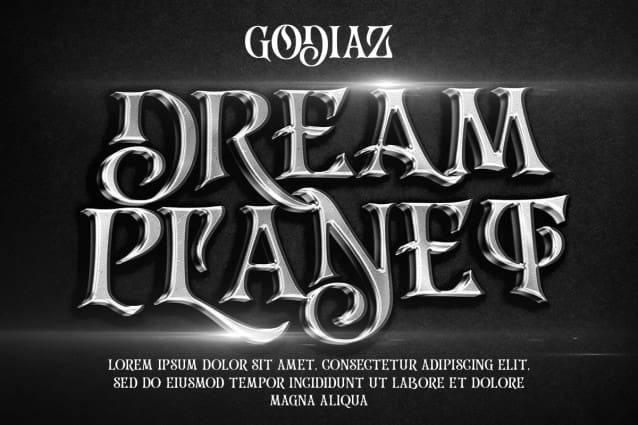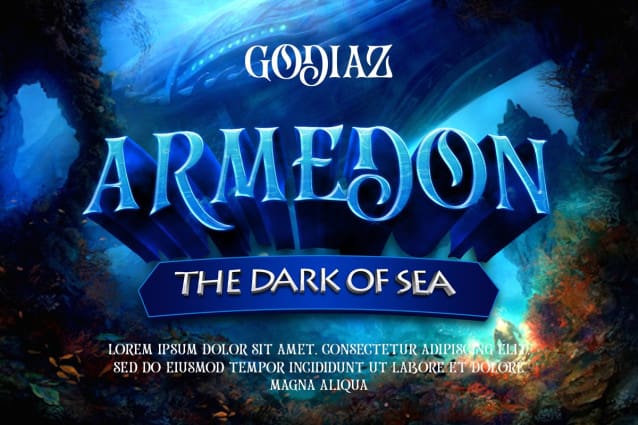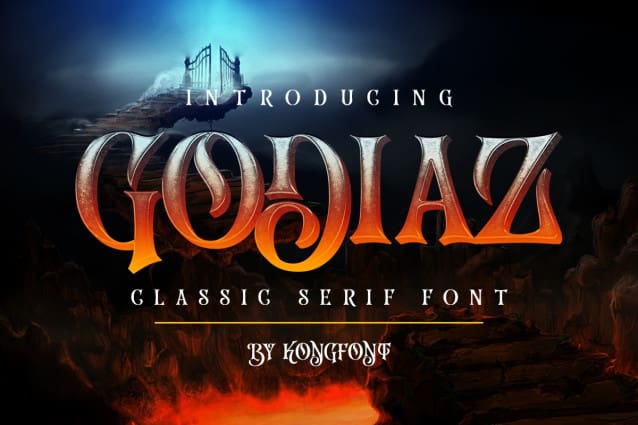
Godiaz Font
Godiaz Font – Classic Serif Font. Many types of serif fonts are available as options for all of us. Godiaz Classic Serif Font is one of the fonts that come with a unique, modern, and classic impression. This impression makes this font different from other Serif fonts. Godiaz Font – Classic Serif Font has an upright shape and curves in several letters. In addition, Thornest looks like a letter arises or resembles two dimensions.
The characters described above make Godiaz Classic Serif Font one of the best fonts that have high compatibility when used as the title and in a film. The use of this font can make a classic and mysterious impression.
Godiaz Font – Classic Serif Font is a font that is suitable for use as a magazine cover and story that has a mysterious theme. An explanation of the use of Godiaz Font – Classic Serif Font shows that this typeface can be used as a digital font and printed on the appropriate font size. The reason is supported by font readability.